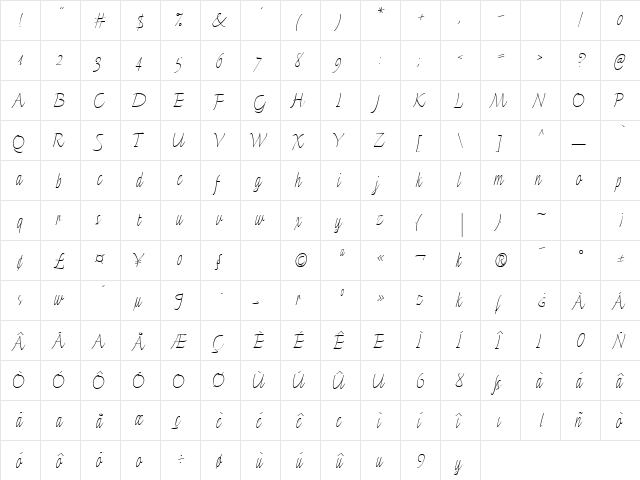
Fineline Micro
Design Context for Fineline Typeface
Fineline is a composed and adaptable typeface that performs quietly and consistently across a wide range of design contexts.